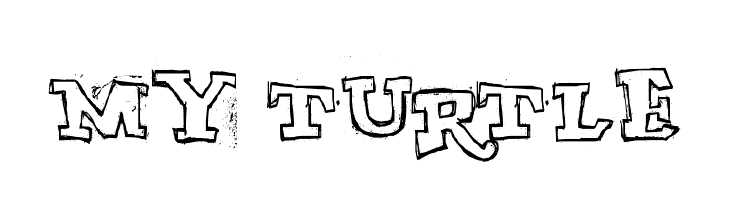
Ornate, emblematic display set with Japanese crest motifs.
A playful, handwritten font with a casual and informal style.
A modern, rounded font with geometric structure and consistent stroke width.
A bold, angular, and condensed italic font with a futuristic style.
Ornamental, abstract circular glyphs with intricate linework.
A playful, bold font with whimsical, hand-drawn letterforms.
An intricate, decorative italic font with swirling, thorn-like embellishments.
A bold, distressed font with a rugged, textured appearance.
A decorative, distressed font with a textured, edgy appearance.
A bold, chrome-like italic font with a futuristic, layered design.
A bold, futuristic italic font with sharp angles and expanded width.
A bold, high-contrast serif font with a classic yet modern style.
A whimsical, steampunk-inspired italic font with gear-like details.
A bold, distressed font with a vintage, grunge aesthetic.
A bold, geometric font with a leftward slant and strong visual impact.
A bold, jagged, and dynamic font with a raw, energetic style.
A bold, distressed font with a rugged, textured appearance and a dynamic slant.
A bold, geometric font with a modern and structured design.
A bold, 3D italic font with a festive, playful style.
A bold, distressed font with a spooky, hand-drawn appearance.
A modern, semi-italic font with medium contrast and a sleek, dynamic style.
A playful, bold, hand-drawn font with a cartoonish style.
A bold, italic font with sharp angles and a modern, dynamic style.
A distressed, hand-drawn font with an edgy, playful style.
A gritty, distressed font with a raw, edgy aesthetic.
Casual handwritten script with tall, narrow letters and fluid strokes.
A flowing, cursive script font with elegant, interconnected characters.
A whimsical and enchanting font with curly, decorative elements.